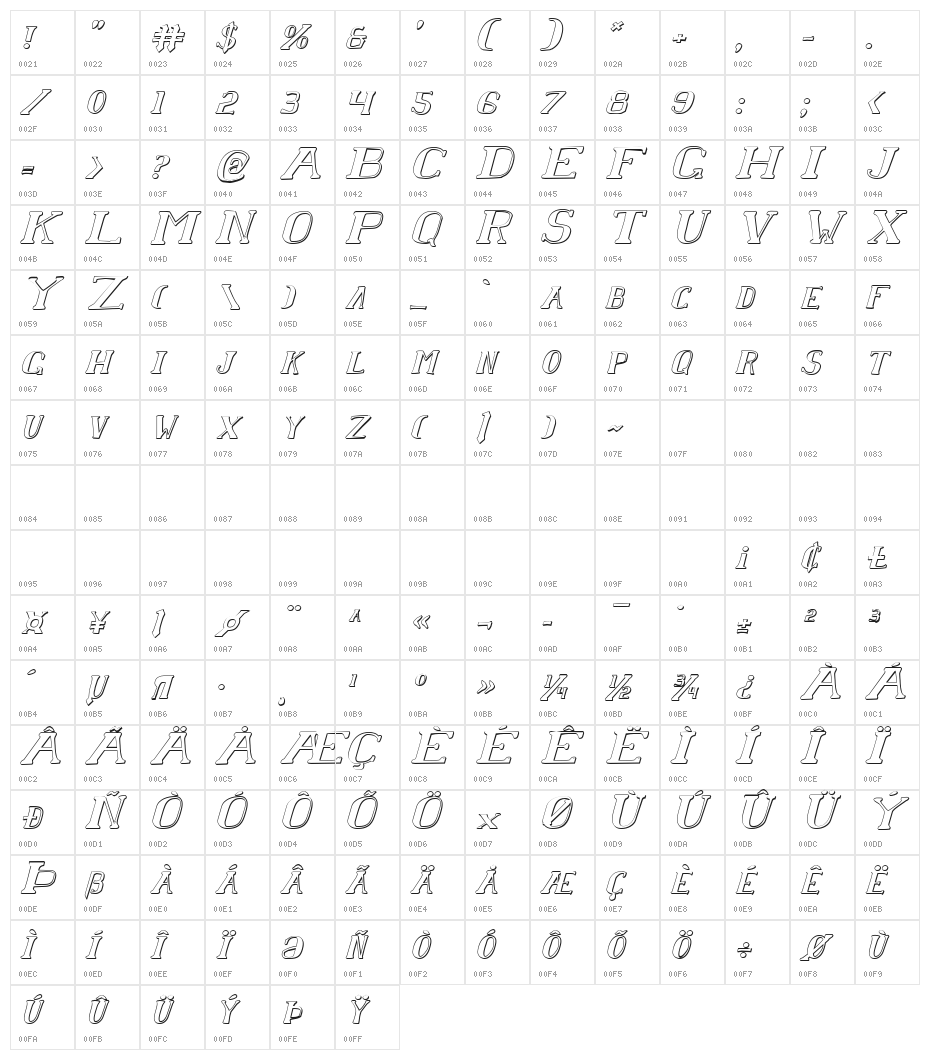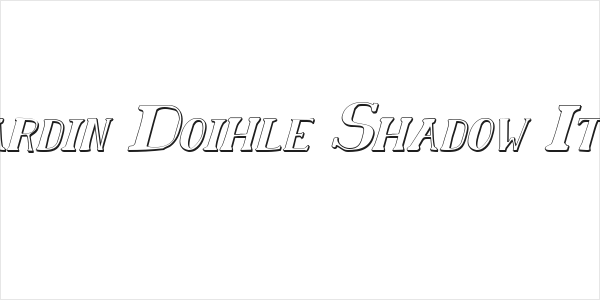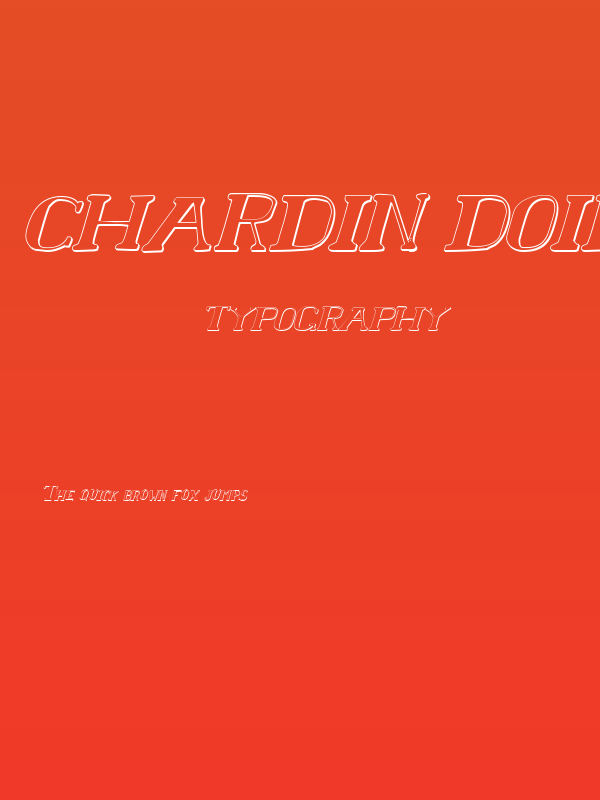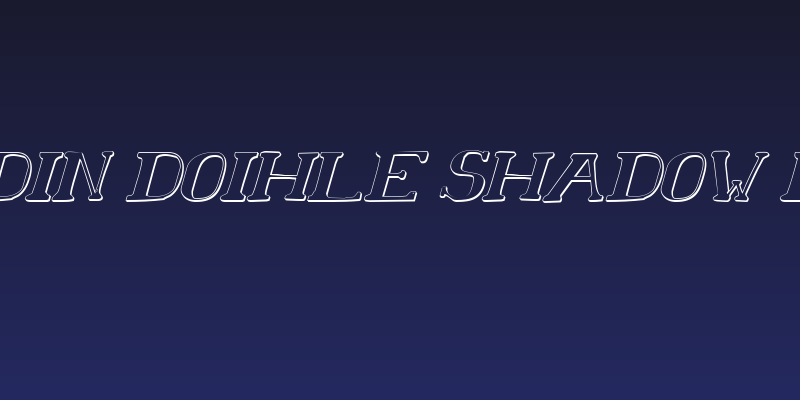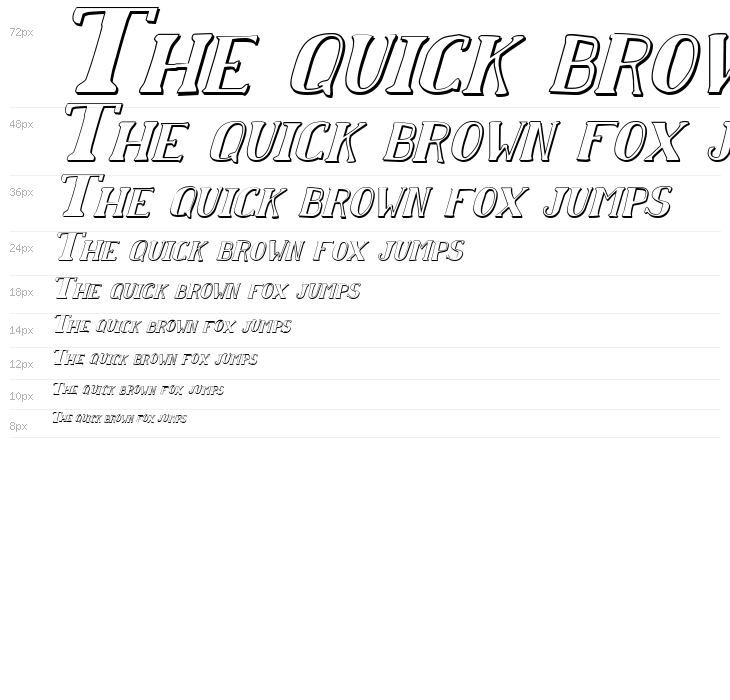
Chardin Doihle Shadow Italic Font
Chardin Doihle Shadow Italic Description
This font features a distinct shadow effect that gives each character a three-dimensional appearance. The italicized style adds a dynamic and forward-leaning posture, enhancing its visual impact. The uppercase and lowercase letters maintain a consistent slant, while the numbers and special characters follow suit, ensuring uniformity across all glyphs. The font's outline design is clean and precise, making it suitable for eye-catching displays. Its unique shadowing provides depth and a sense of movement, making it ideal for projects that require a bold and stylish statement.